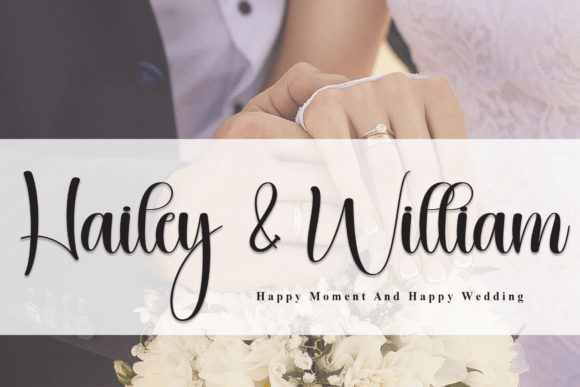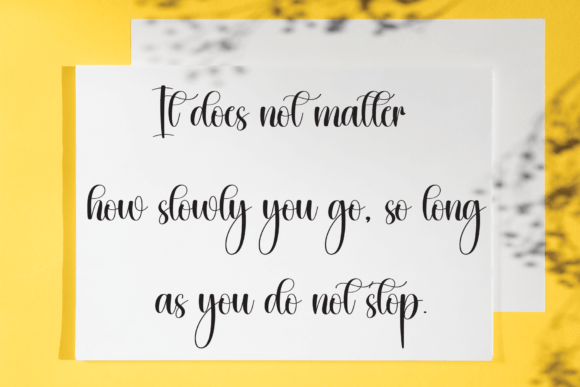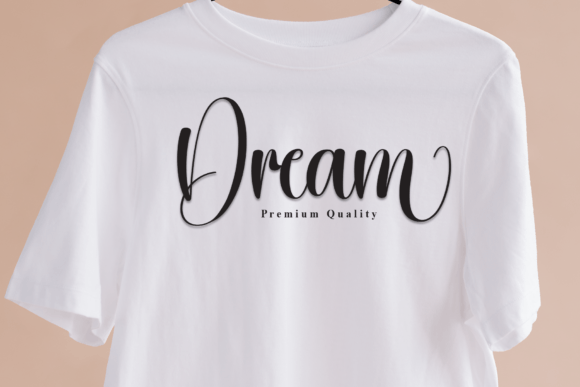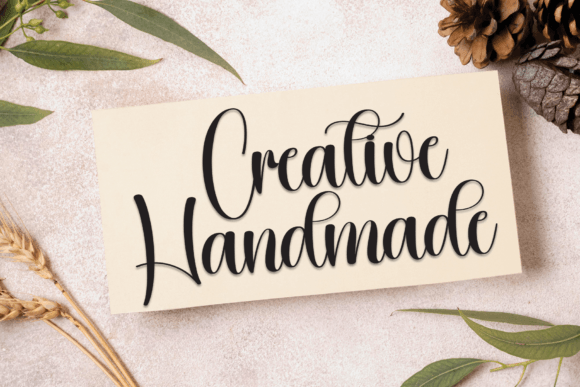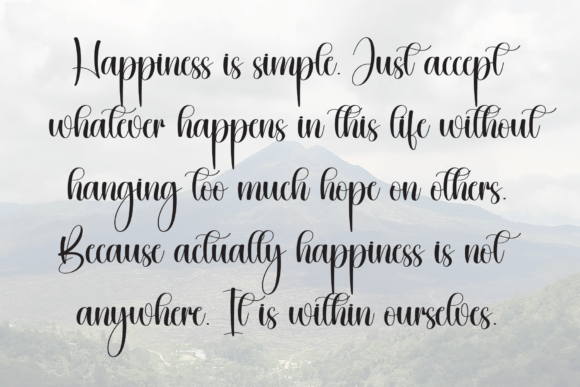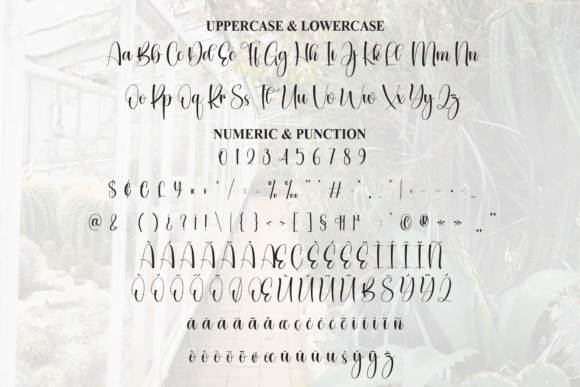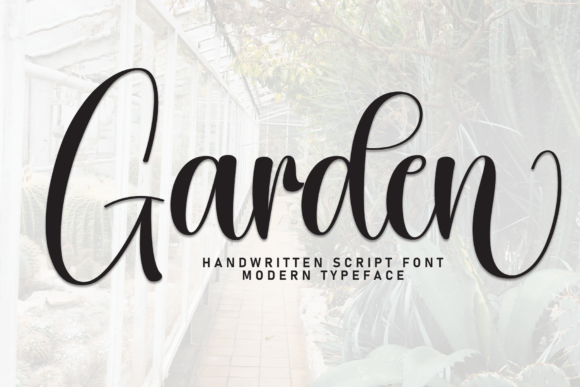
Garden Font: Elevate Your Designs with Elegance and Sophistication
Are you a designer or crafter looking for a font that exudes elegance and sophistication? Look no further than Garden Font, a beautiful handwritten font that is sure to take your designs to the next level. With its smooth, flowing letters and personal touch, Garden Font is perfect for creating stunning invitations, greeting cards, and other special designs that require a touch of class.
The Characteristics of Garden Font
Garden Font is a carefully crafted handwritten font that boasts a range of characteristics that make it stand out from the crowd. Its smooth, flowing letters are designed to give your designs a personal touch, making them perfect for a wide range of applications. Whether you’re creating invitations, greeting cards, or other special designs, Garden Font is sure to add a touch of elegance and sophistication.
One of the key features of Garden Font is its elegant and refined appearance. The font’s letters are carefully crafted to create a sense of flow and continuity, making it perfect for creating beautiful and stylish designs. The font’s smooth lines and curves also give it a highly legible and readable appearance, making it perfect for use in a wide range of applications.
Uses for Garden Font
Garden Font is a highly versatile font that can be used in a wide range of applications. Here are just a few examples of how you can use Garden Font to elevate your designs:
• Invitations: Garden Font is perfect for creating beautiful and elegant invitations for weddings, parties, and other special occasions.
• Greeting Cards: The font’s smooth, flowing letters make it perfect for creating stunning greeting cards for birthdays, holidays, and other special occasions.
• Branding: Garden Font can also be used in branding applications, such as logos, packaging, and marketing materials.
• Signage: The font’s elegant and refined appearance makes it perfect for use in signage applications, such as menus, posters, and billboards.
Why Choose Garden Font?
So why choose Garden Font over other fonts? Here are just a few reasons why Garden Font is a great choice for designers and crafters:
• Elegant and Refined: Garden Font boasts an elegant and refined appearance that is sure to elevate your designs.
• Highly Legible: The font’s smooth lines and curves make it highly legible and readable, even at small sizes.
• Versatile: Garden Font can be used in a wide range of applications, from invitations and greeting cards to branding and signage.
Tips for Using Garden Font
Here are a few tips for getting the most out of Garden Font:
• Use it with a Simple Background: Garden Font looks best with a simple background that allows the font to take center stage.
• Experiment with Colors: The font’s elegant and refined appearance makes it perfect for use with a wide range of colors and textures.
• Pair it with Other Fonts: Garden Font can be paired with other fonts to create a unique and stylish look.
In conclusion, Garden Font is a beautiful and elegant handwritten font that is perfect for designers and crafters looking to add a touch of sophistication and elegance to their designs. With its smooth, flowing letters and highly legible appearance, Garden Font is perfect for use in a wide range of applications, from invitations and greeting cards to branding and signage. So why wait? Download Garden Font today and start creating stunning designs that are sure to impress!